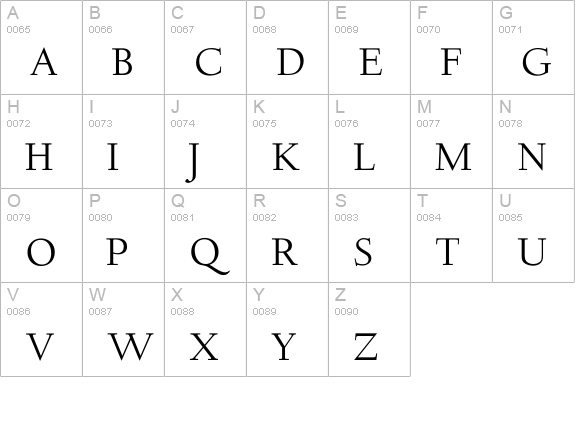
DeepdeneHSC Font Details
DeepdeneHSC is a beautifully crafted and versatile font that exudes elegance and sophistication. Its sleek lines and modern aesthetic make it perfect for a wide range of design projects, from branding to editorial design. This font strikes the perfect balance between classic and contemporary, making it a timeless choice for any creative endeavor. The best part? DeepdeneHSC is available for free download at FontsMarket.com. This means you can easily access this stunning font without breaking the bank. Whether you're a seasoned designer or just starting out, DeepdeneHSC is sure to elevate your work and leave a lasting impression. Download it today and add a touch of refinement to your projects with this exceptional typeface.